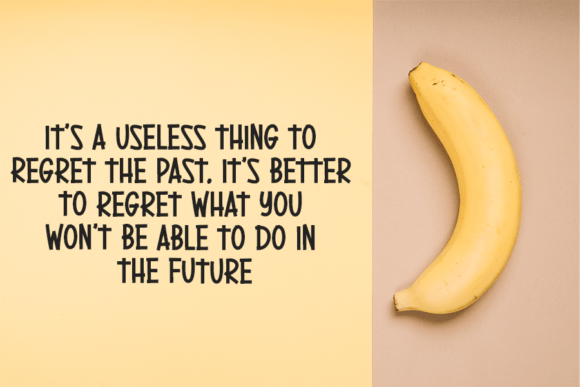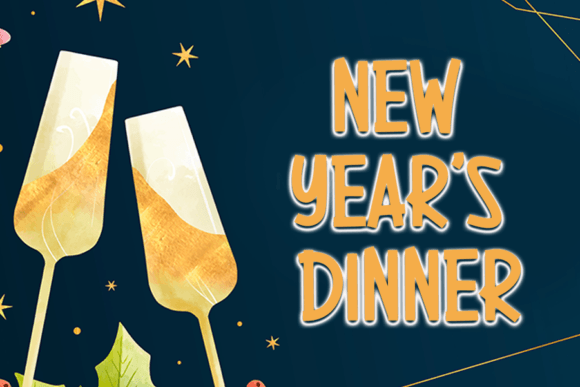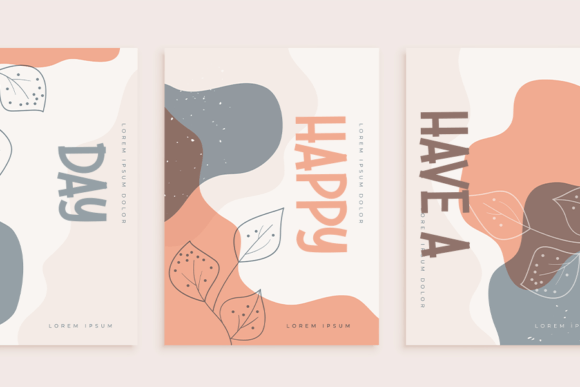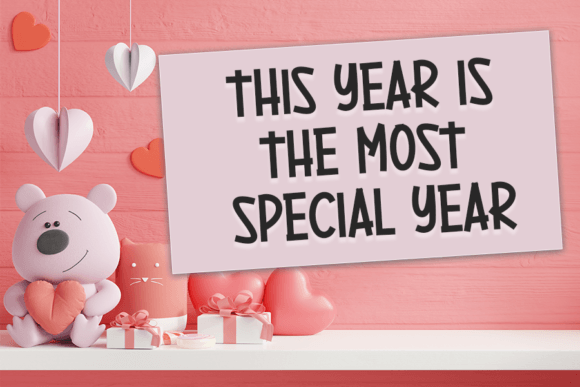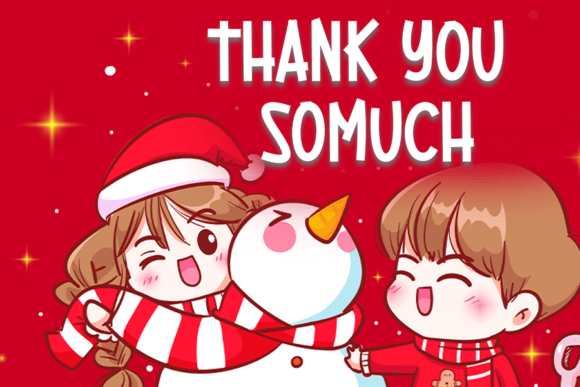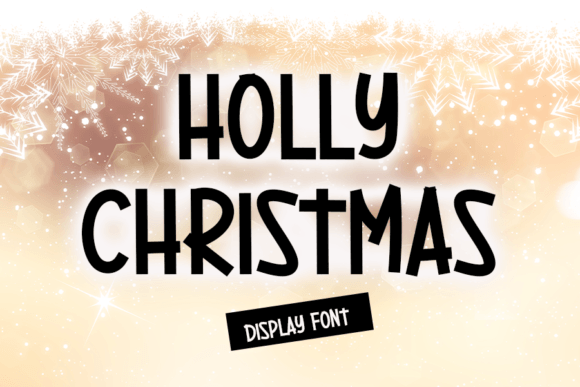
The Perfect Font for a Merry Christmas Design
Have you ever sat at your desk, surrounded by papers, glue, and glitter, feeling like a kid on Christmas morning? The excitement of bringing your creative ideas to life is one of the best feelings in the world. And for designers, it’s no different. The right font can make all the difference in taking your project from good to great.
That’s where the Holly Christmas Font comes in – a fun and cute handwritten display font that’s sure to become a true favorite. Masterfully designed to bring each of your creative ideas to the highest level, this font is perfect for adding a touch of festive cheer to your designs. Whether you’re creating holiday cards, gift tags, or social media posts, the Holly Christmas Font is sure to make your designs stand out.
As a designer, you know how valuable the right font can be. It can elevate your designs, make them more engaging, and even convey the right message. With the Holly Christmas Font, you’ll have the perfect tool to make your holiday designs shine.
Holly Christmas Font Key Features
- Font Family: A unique, hand-drawn font designed specifically for Christmas and holiday themes.
- Unique Characteristics: Features intricate, hand-crafted details and ornaments that evoke a warm, festive atmosphere.
- Character Set: Includes a comprehensive set of characters, including uppercase and lowercase letters, numbers, and punctuation marks.
Holly Christmas Font Review
Overall, I think the Holly Christmas Font is a fun and playful addition to any holiday design project. ✨ Its whimsical feel and unique character combinations make it perfect for creating a festive atmosphere. The font is well-suited for headings, titles, and even short blocks of text.
Here are some things that work well with the Holly Christmas Font:
- ✨ Whimsical feel: The font’s unique character combinations and flowing lines give it a magical, festive feel.
- ✨ Variety of styles: The font comes in multiple styles, including bold and italic, which can be used to create a visually appealing hierarchy.
- ✨ Easy to read: Despite its playful feel, the font is still easy to read, making it a great choice for long blocks of text.
- ⚠️ Limited language support: The font may not support certain languages or character sets, which could limit its use in global designs.
- ⚠️ Limited customization options: While the font comes in multiple styles, there may be limited options for customizing the font’s appearance or behavior.
Overall, I think the Holly Christmas Font is a great choice for holiday designs, but it’s essential to be aware of its limitations before using it in a project.
Getting the Most Out of the Holly Christmas Font
To get the most out of the Holly Christmas Font, try combining it with bold or italic styles to add emphasis. You can also experiment with different font sizes to create visual hierarchy and interest.
The Holly Christmas Font is perfect for holiday-themed designs, such as Christmas cards, invitations, and gift tags. It can also be used for general winter or festive designs, such as snowflakes, snowmen, and hot chocolate cups.